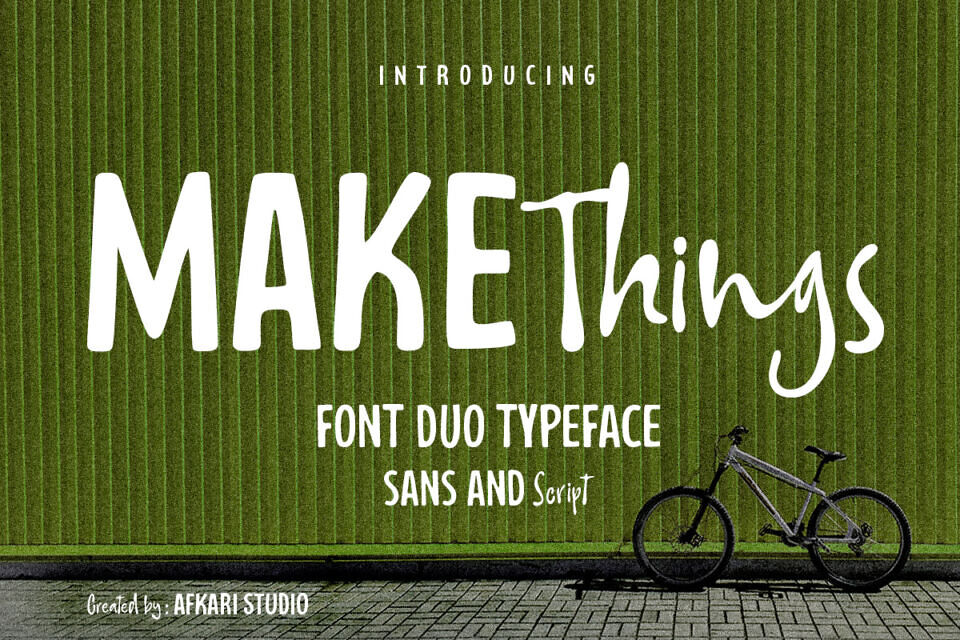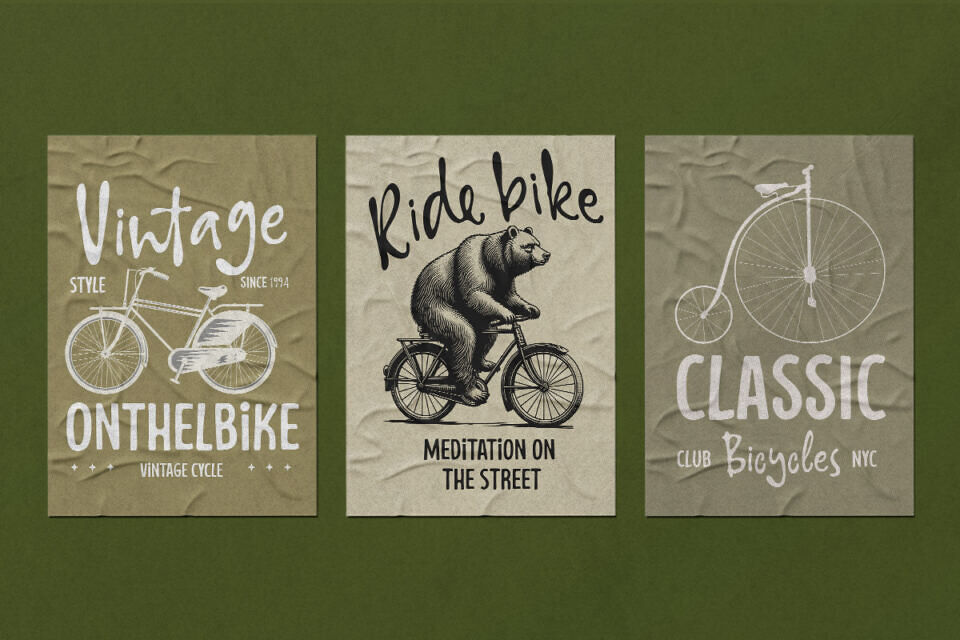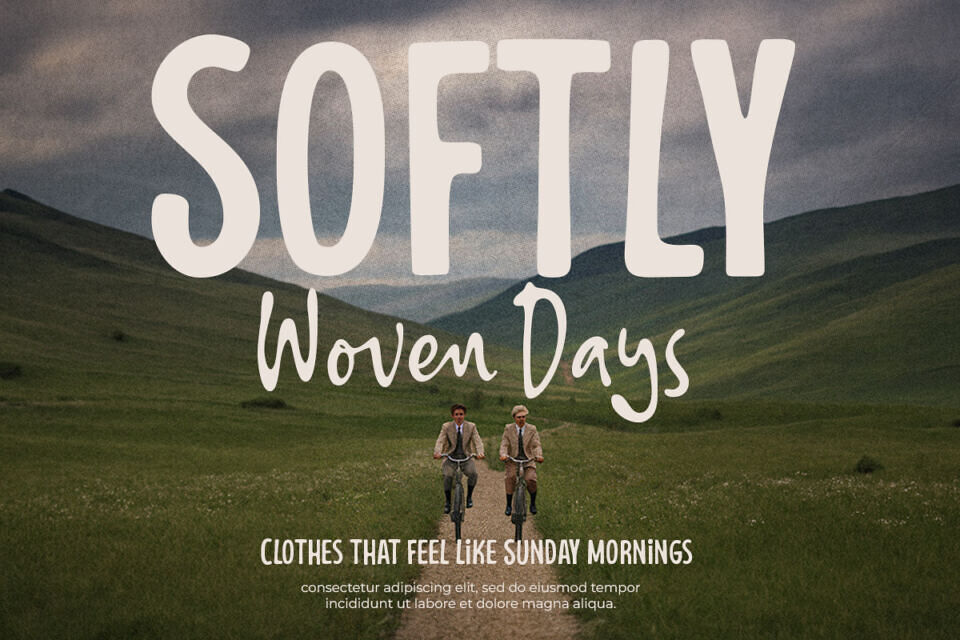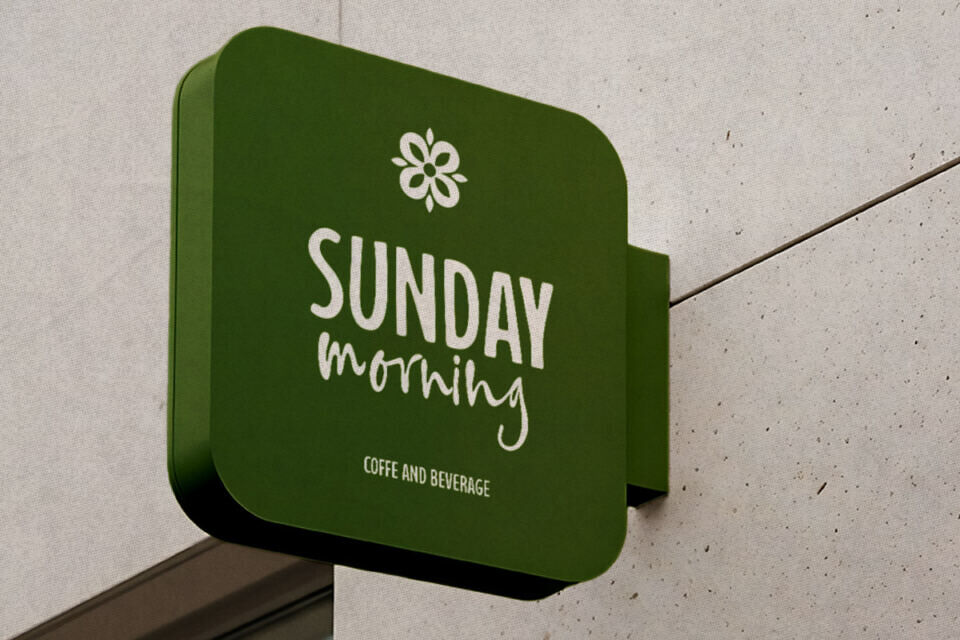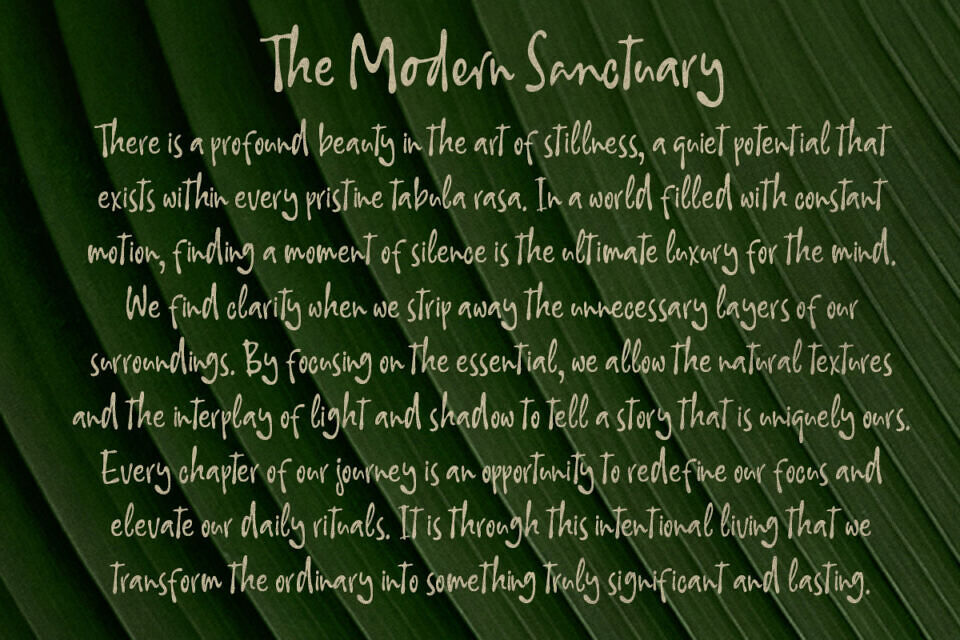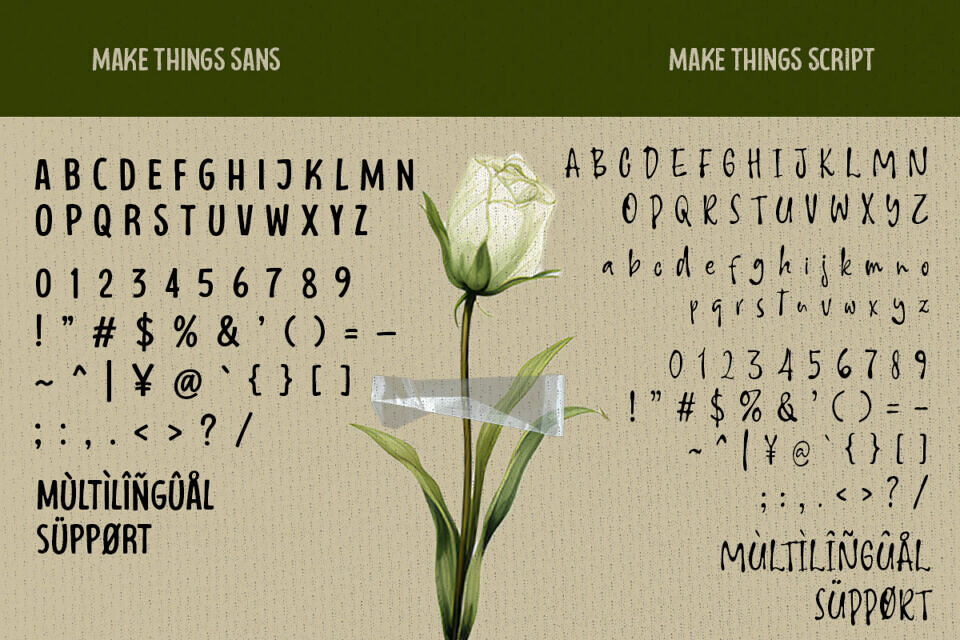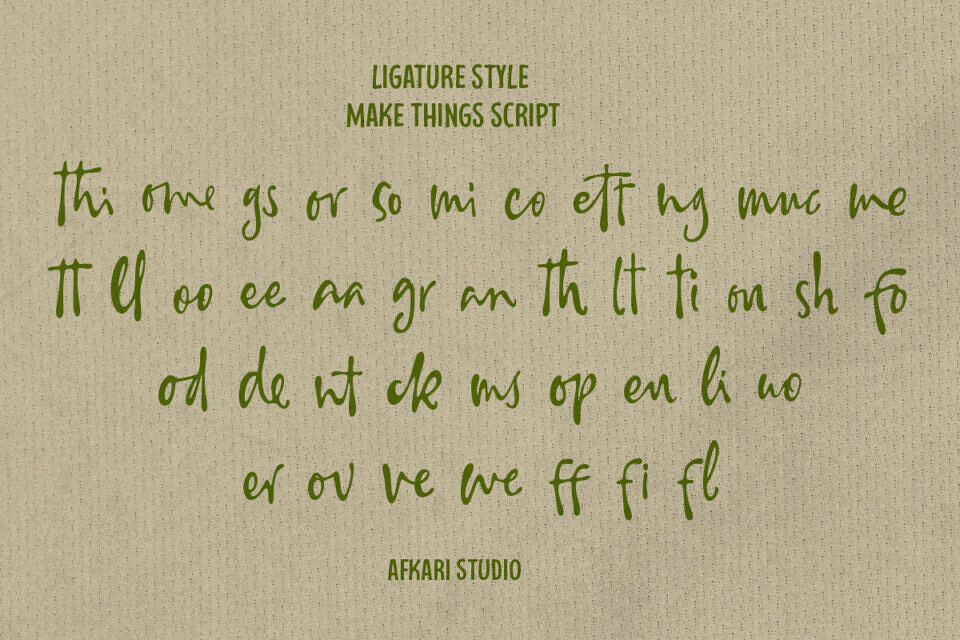
Make Things is a versatile sans and script font duo typeface designed to give your projects the perfect balance between clean modern structure and expressive handwritten style. This powerful combination allows you to effortlessly create stunning typography with contrast, harmony, and visual interest.
The sans serif font delivers a minimalist, professional, and highly readable look, while the script font adds a natural, flowing, and personal touch. Together, they create a dynamic pairing that works beautifully across a wide range of design applications.